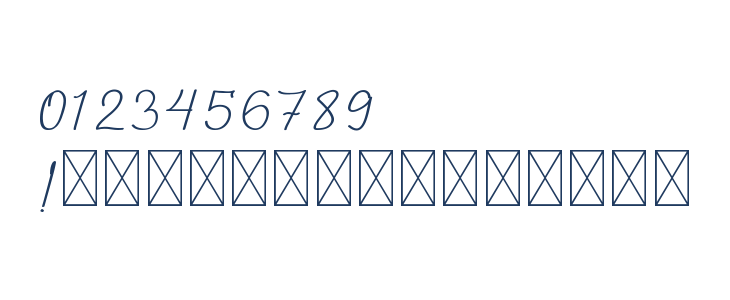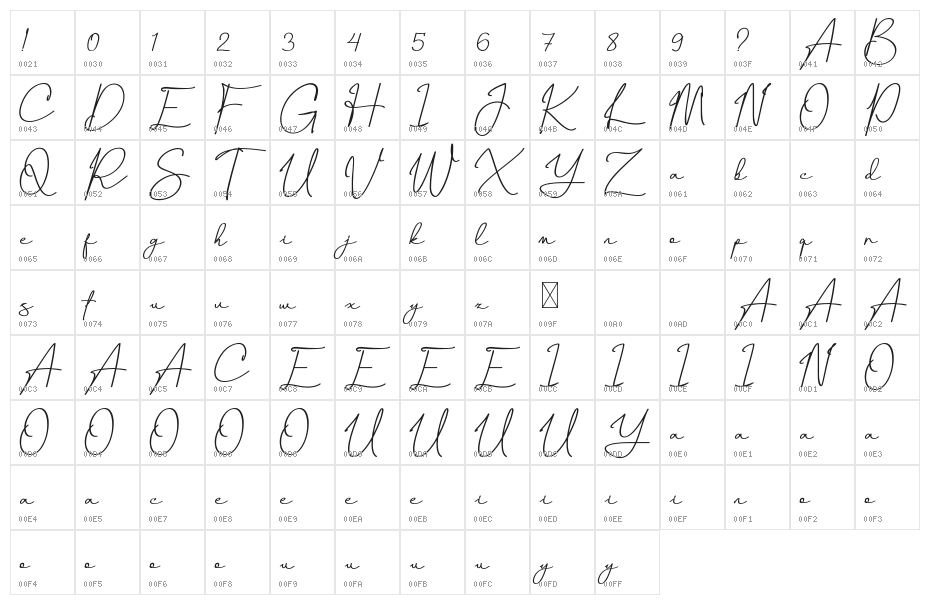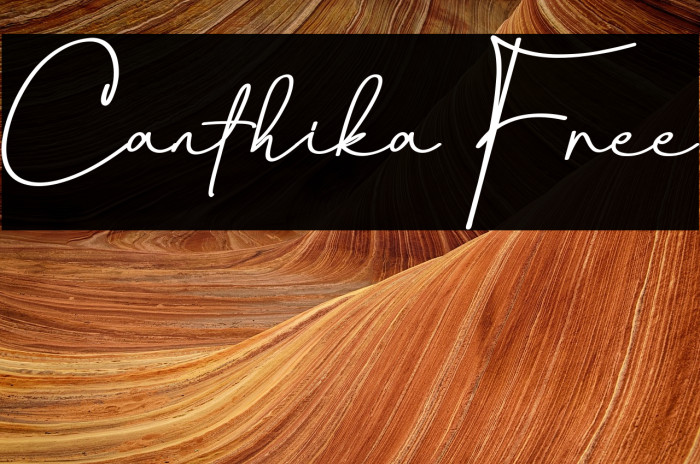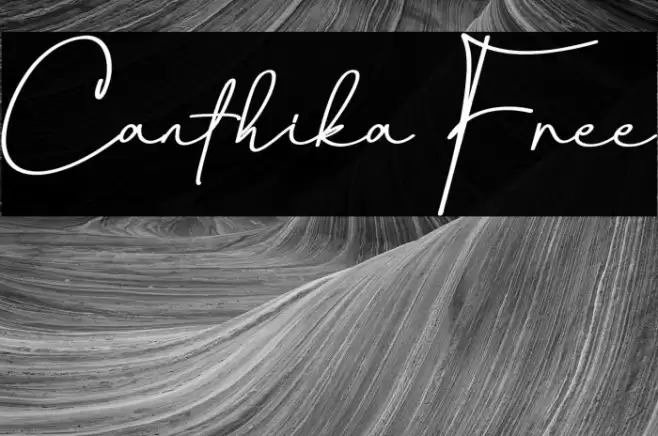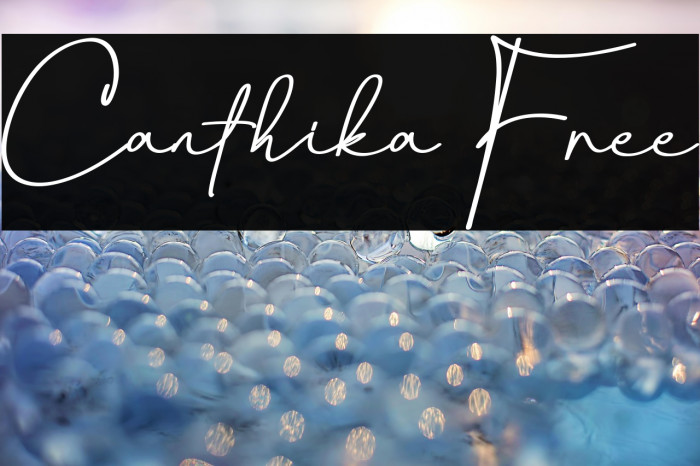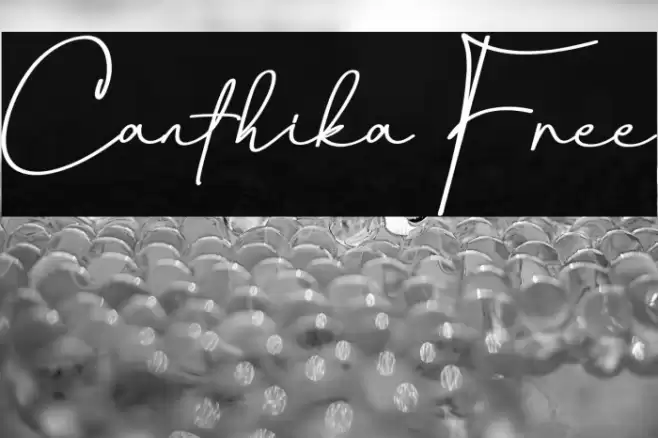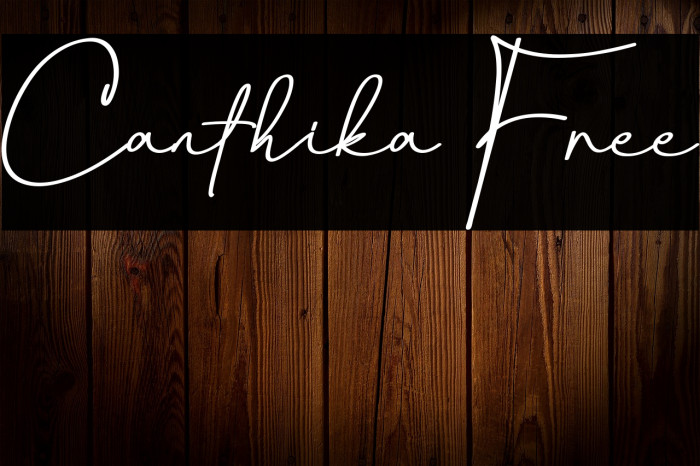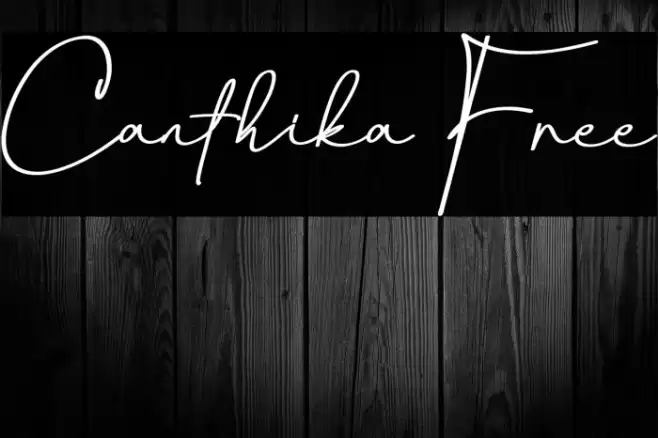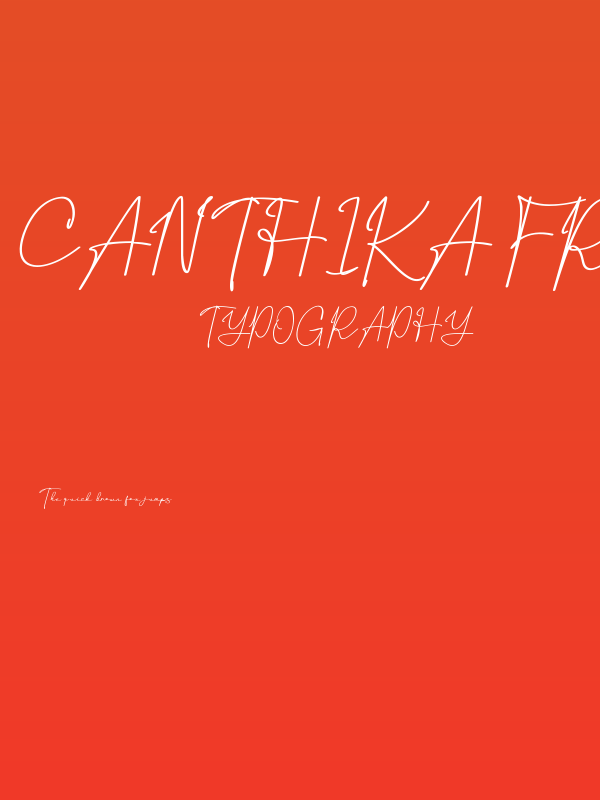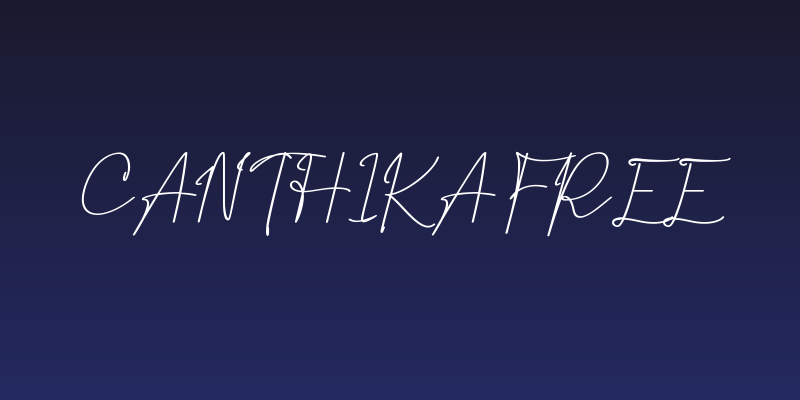
Canthika Free Font
Canthika Free Description
This font features a fluid and elegant script style, characterized by its smooth, flowing lines and graceful curves. The uppercase letters exhibit a sense of movement and dynamism, with each character seamlessly connecting to the next. The lowercase letters maintain this fluidity, offering a harmonious and cohesive appearance. The numerals are consistent with the overall style, providing a sense of continuity. This font's delicate strokes and artistic flair make it ideal for creative and expressive projects.
| Overall Style | Elegant, Artistic |
| Proposed Projects | Ideal for wedding invitations, greeting cards, branding, and artistic projects requiring a personal touch. |